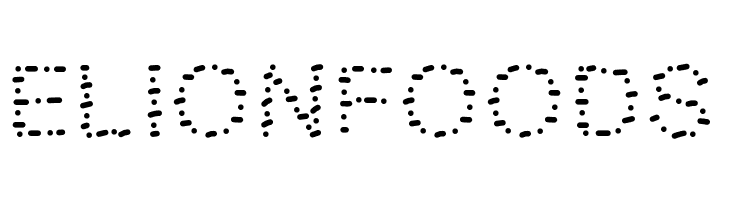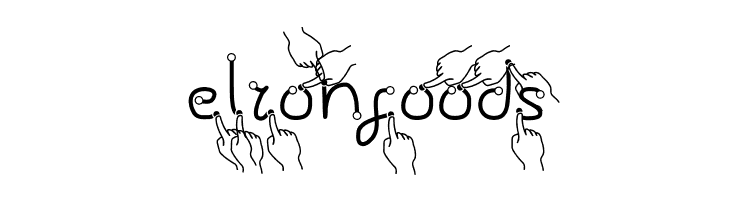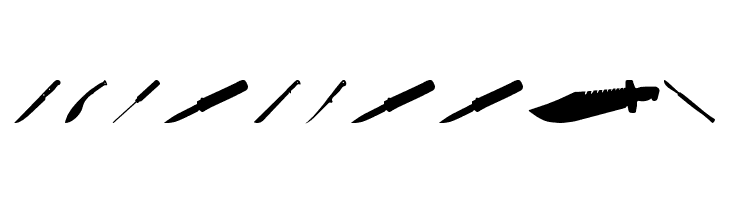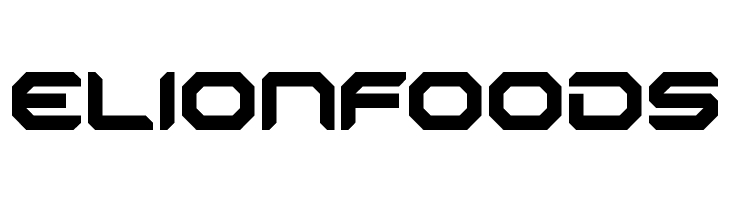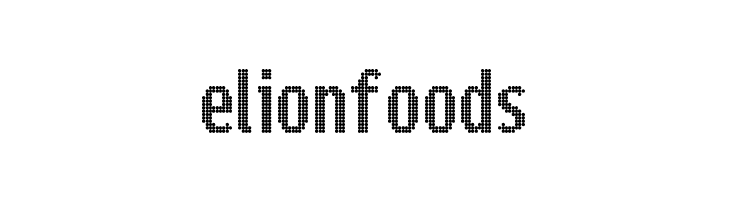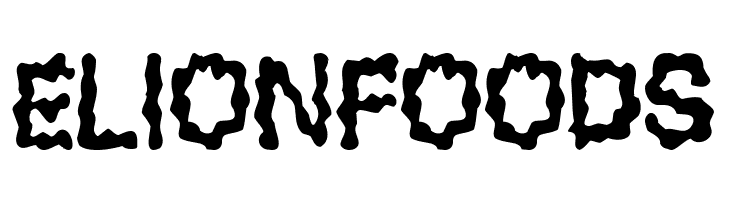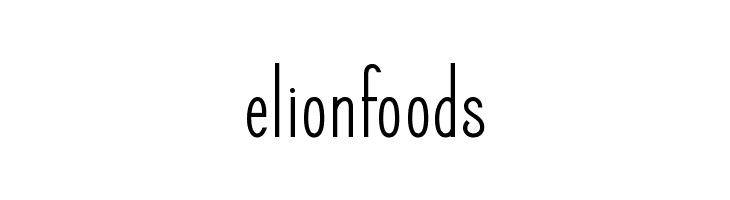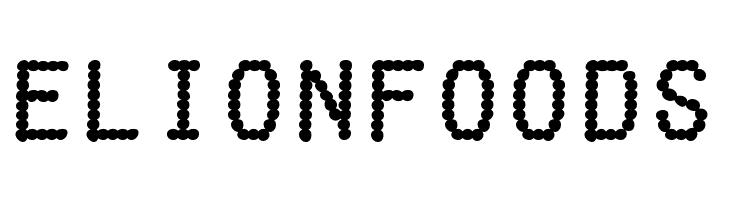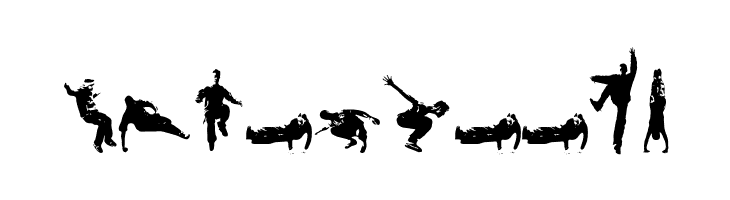
A decorative font with characters formed by small, evenly spaced dots.
A playful font with hand gestures integrated into each character.
A display font made from weapon and tool silhouettes.
A bold, futuristic font with geometric shapes and sharp angles.
A modern, tech-inspired font with characters formed by small dots.
An artistic font combining skeletal elements with roses for a bold, decorative look.
An organic, blob-like font with playful, irregular edges.
A modern, semi-bold sans-serif font with a sleek and sophisticated design.
A dot-matrix style font with a retro, pixelated appearance.
Energetic display font using parkour silhouettes for each character.